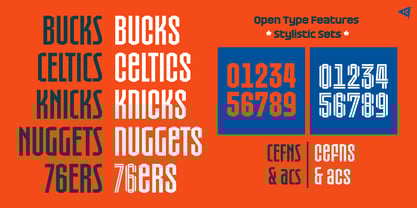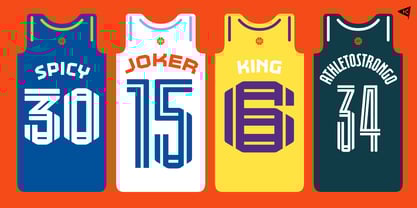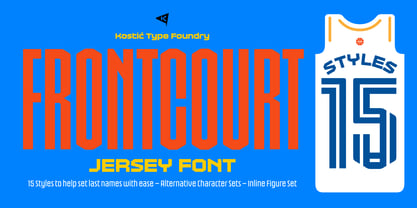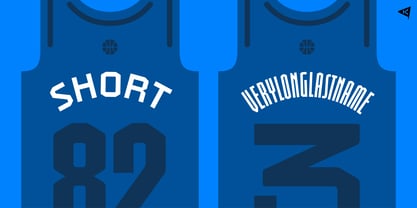
Frontcourt
by Kostic
The Frontcourt Font Family was designed by Nikola Kostić and published by Kostic. Frontcourt contains 15 styles and family package options.
Frontcourt is a versatile display typeface primarily conceptualized for jersey names and numbers, offering exceptional flexibility across five widths—Compressed, Condensed, Normal, Wide, and Extra Wide. Each width is available in three distinct styles: Regular, Medium, and Bold, ensuring optimal legibility and impact across various applications.
With a focus on adaptability, Frontcourt allows for seamless customization of short and long last names on jerseys, maintaining a balanced and cohesive aesthetic. Beyond its intended use in sports typography, it can also be useful in other display settings where bold, high-impact lettering is needed. A set of alternative characters (C, E, F, N, S, a, c, s, &) via the OpenType feature and an additional set of inline figures (both Proportional and Tabular) offer further customization, making Frontcourt a dynamic choice for branding, signage, and promotional design.